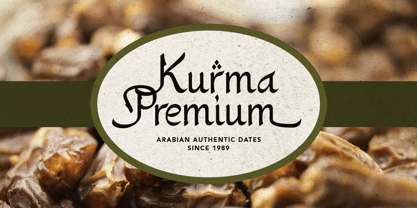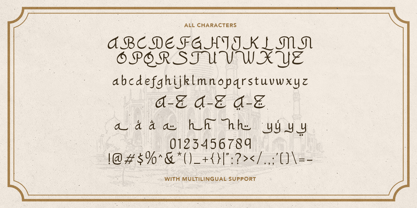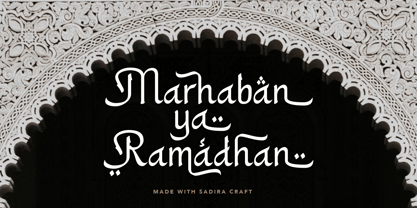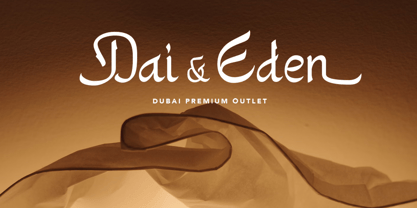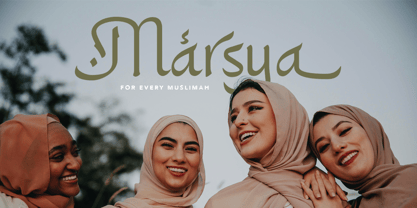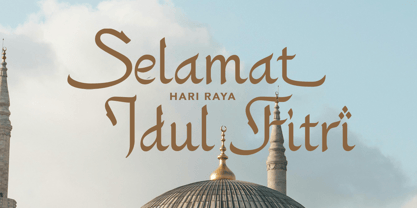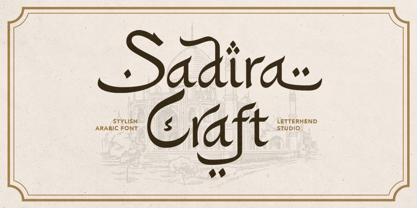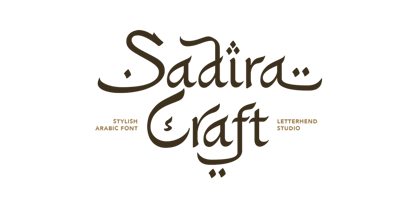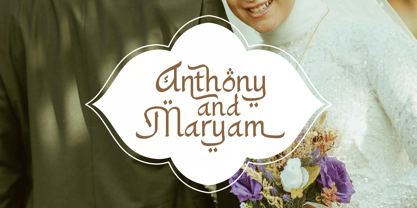
Sadira Craft
Sadira Craft rises with the spirit of desert winds and timeless calligraphy. Its sweeping strokes and sculpted curves carry the elegance of classical Arabic artistry, while subtle handcrafted details give it a bold, contemporary presence. It brings a deep cultural resonance to Ramadan visuals, heritage events, invitations, packaging text, branding compositions, and editorial headlines—offering a dramatic yet graceful voice that honors tradition while standing confidently in modern design. Features : Uppercase & lowercase Numbers and punctuation Alternates & Ligatures Multilingual Support PUA encoded